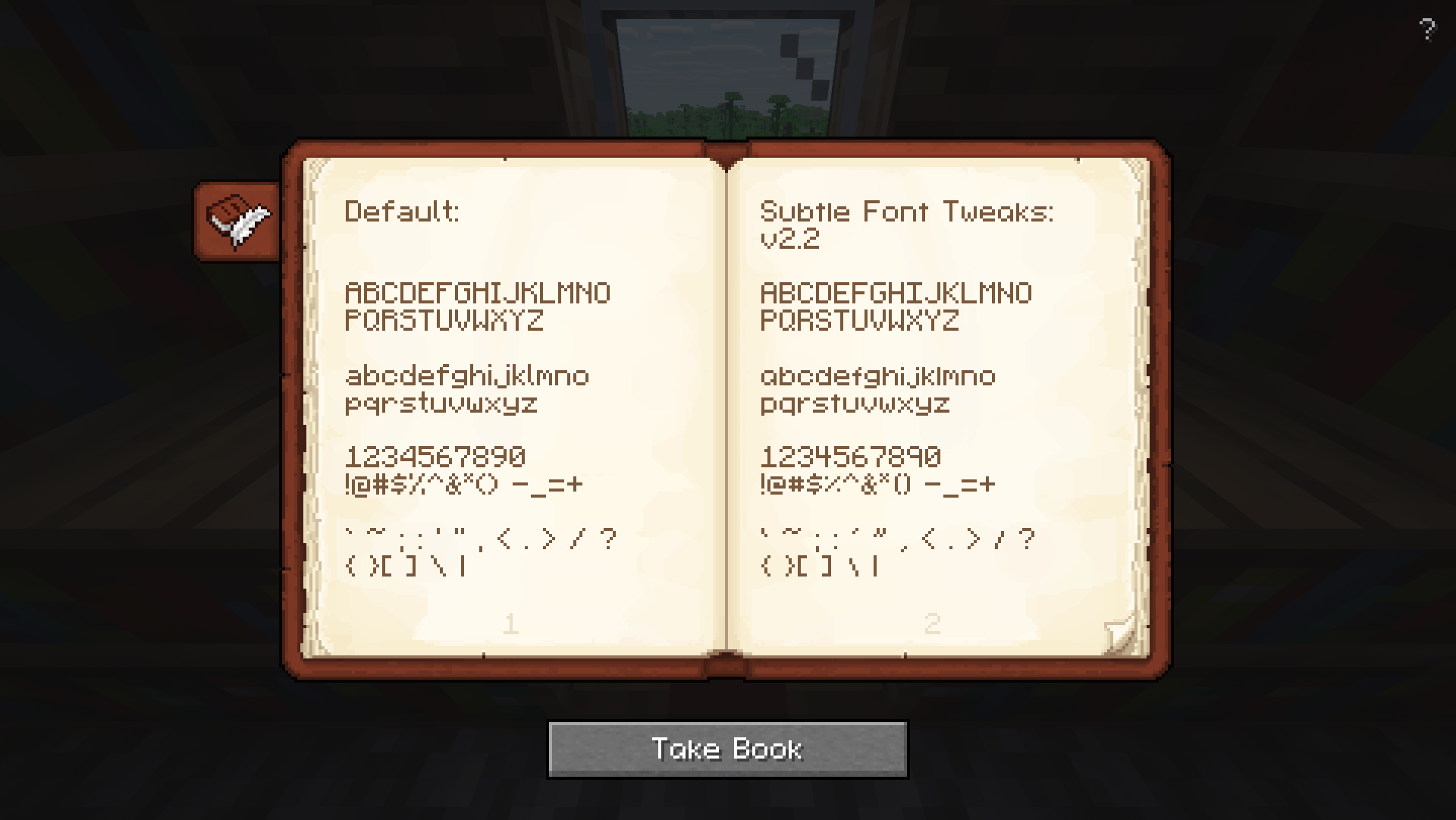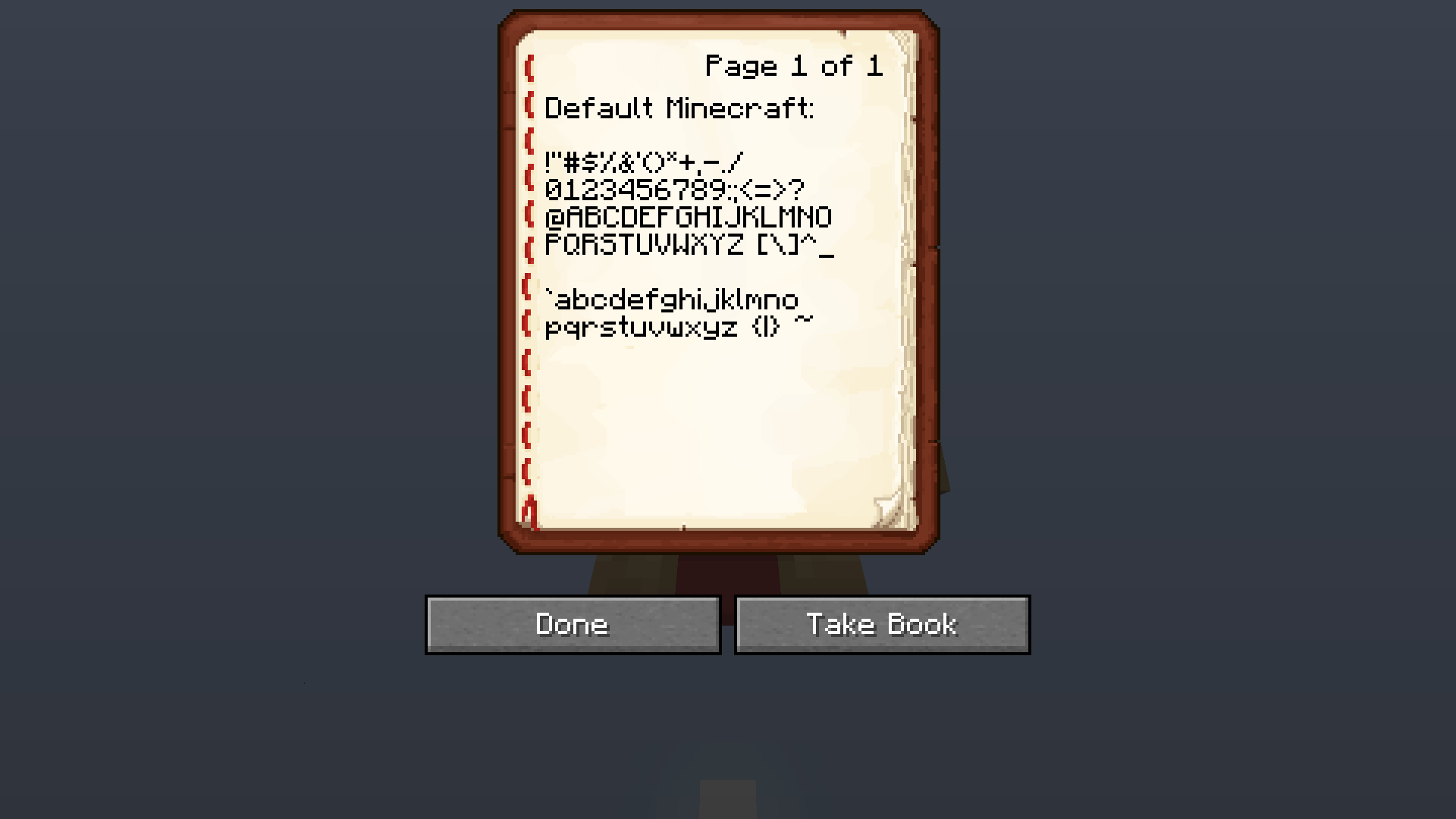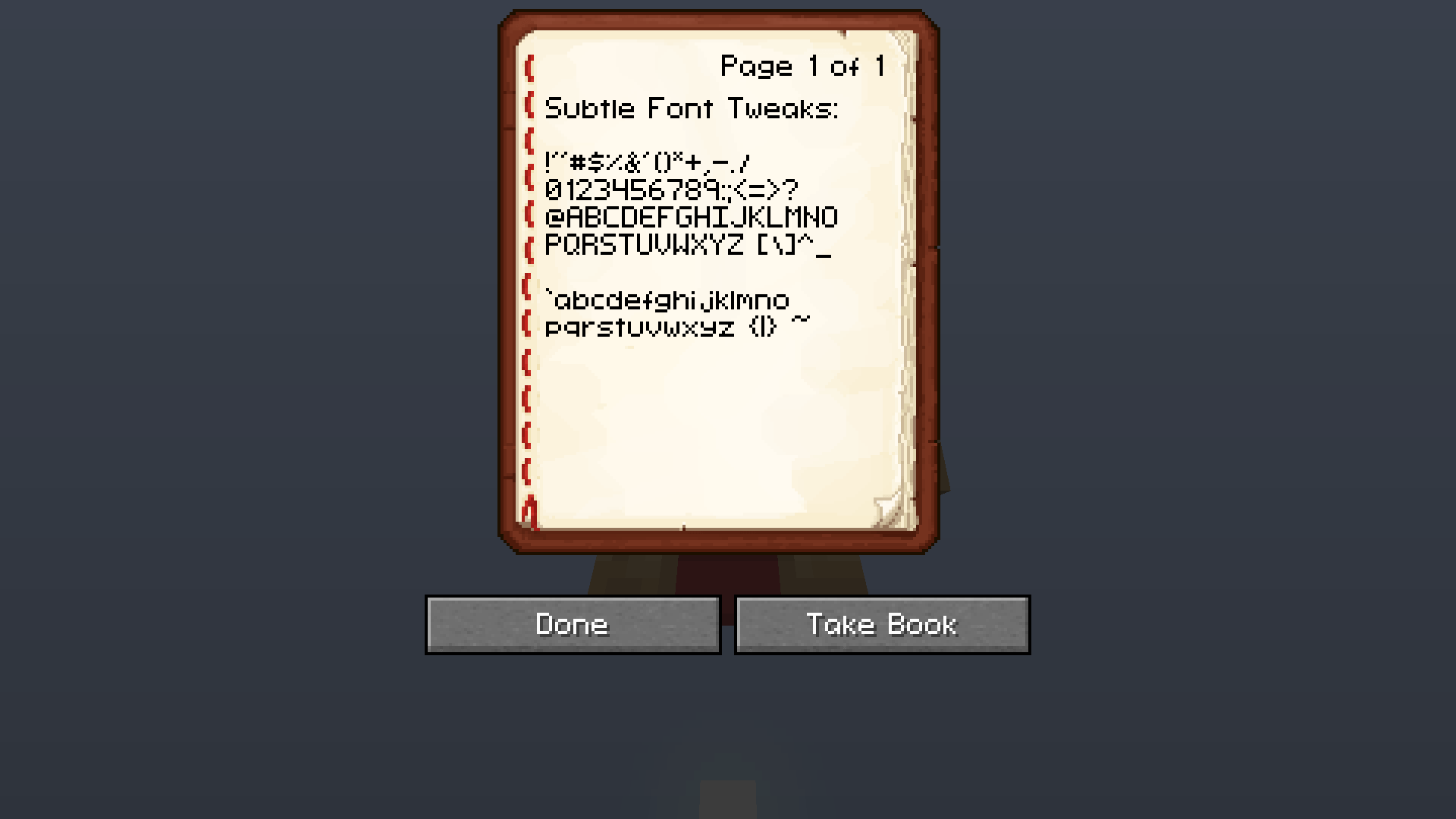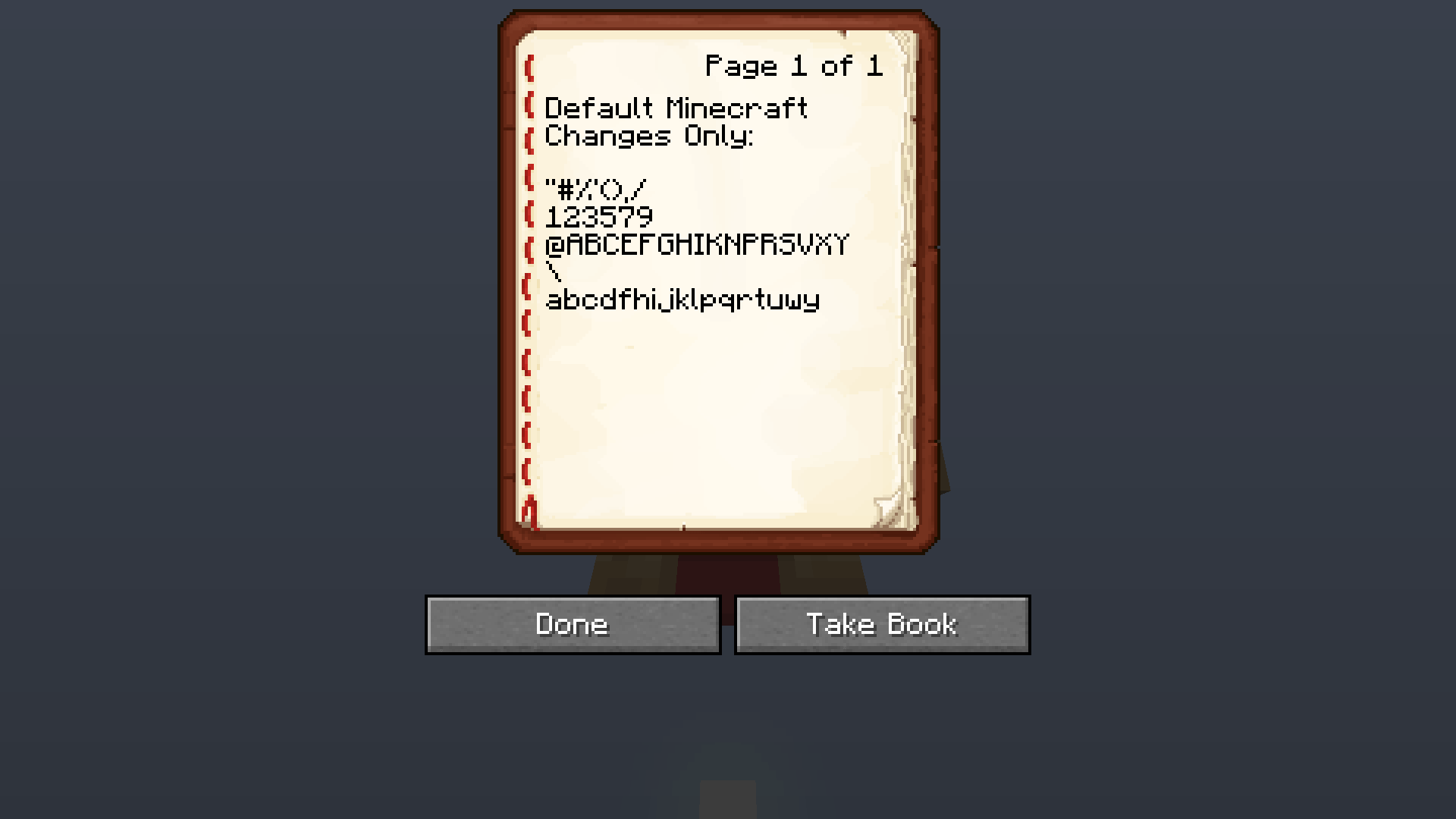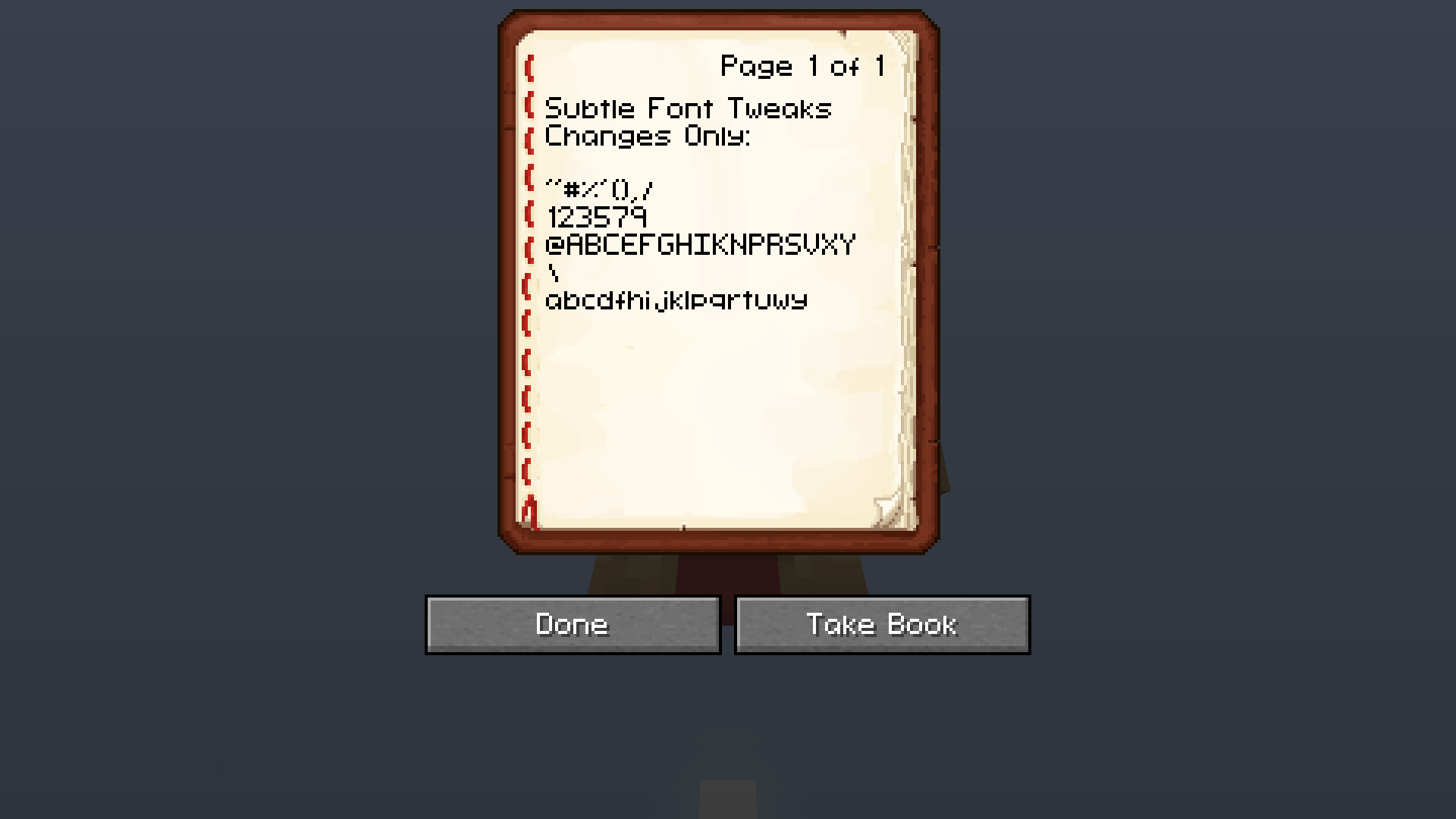
Subtle Font Tweaks Texture Pack (26.1.2)
Subtle Font Tweaks makes lowercase letters smaller and rounder. It also centers capitalized letters. These are minor changes that give a fresh new feel to your game.
Features:
- Capital letters are now centered.
- Lowercase letters are rounder and smaller.
- It includes other small, subtle adjustments.